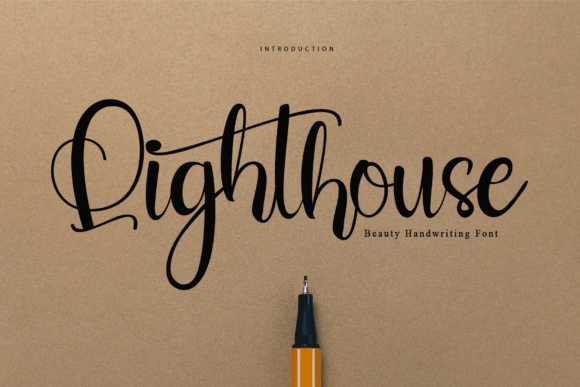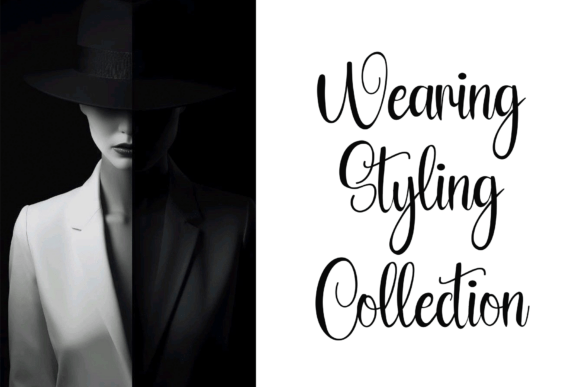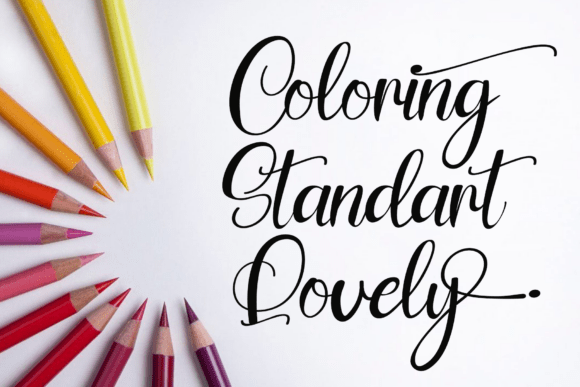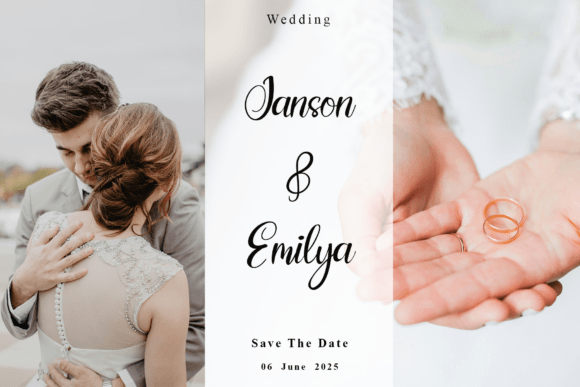
Lighthouse Font: Elegant Calligraphy Script for Branding & Wedding
About the Lighthouse Font
Welcome to the world of Lighthouse Font, a typeface that will inspire your next great project. Lighthouse is a trendy handwritten font with a contemporary atmosphere and impeccable form, inspired by timeless classic calligraphy. It will add elegance and class to any of your design projects.
Lighthouse excels in applications requiring a touch of refined informality, such as short headlines, logos, and invitations. Its elegant yet approachable style works well for branding projects targeting a sophisticated yet relatable audience, particularly in the fashion, beauty, or lifestyle sectors. Avoid using Lighthouse for extended body text or user interfaces; its handwritten nature hinders readability in large blocks of text.
Pairing Lighthouse with a clean sans-serif like Montserrat or a geometric sans-serif such as Futura provides a strong contrast, balancing its organic forms with crisp, modern lines. For a warmer feel, consider pairing it with a classic serif like Garamond or a script font with a similar level of formality but different weight.
Lighthouse projects a personality that is both elegant and friendly, modern yet timeless. Its slightly informal quality prevents it from feeling overly stuffy, while its precise letterforms maintain a sophisticated air.
Lighthouse Font Usage Examples
Lighthouse Font Example